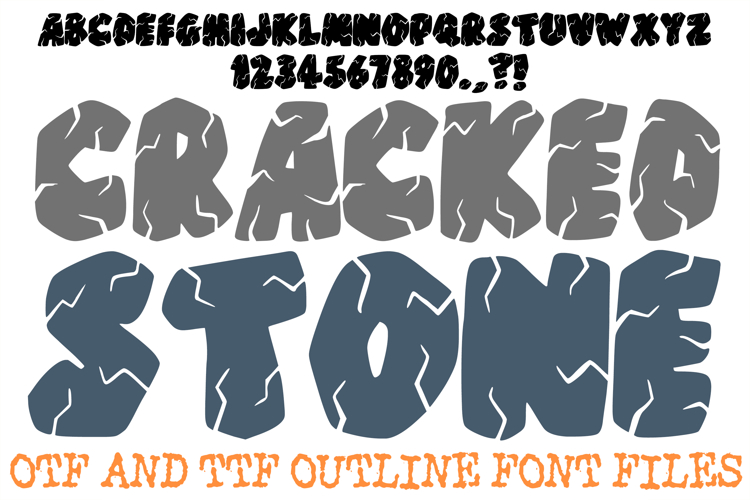
Cracked Stone Font Hand Drawn Cartoon Lettering ABC OTF Type
The Cracked Stone Font is a powerhouse display typeface designed for maximum impact. Featuring heavy, boulder-like silhouettes and intricate, hand-drawn fracture lines, this font captures the rugged strength of weathered stone. It is the ultimate choice for gaming logos, prehistoric-themed branding, heavy-metal apparel, and high-energy sports graphics that need to look unbreakable.
Each character is meticulously crafted with jagged "lightning" cracks that provide a sense of movement and raw power. Whether you are a designer creating a bold brand identity, a content creator designing a high-stakes thumbnail, or a crafter working on heavy-duty vinyl decals, the Cracked Stone Font delivers a professional, artisan-etched aesthetic that demands attention.
Intricate Fracture Detail: Every letter and number features unique, jagged crack patterns, giving your text a realistic, "shattered stone" appearance.
Heavy-Weight Impact: The thick, chunky construction ensures your headlines remain dominant and highly readable, even on complex backgrounds.